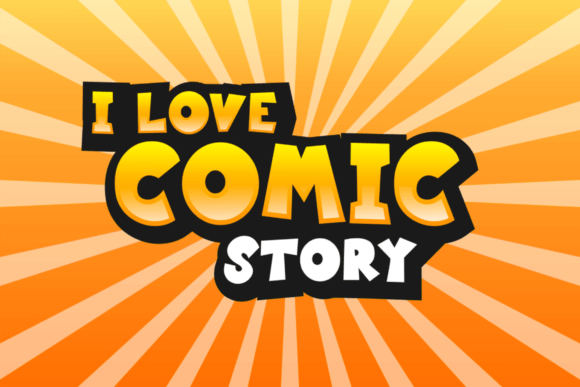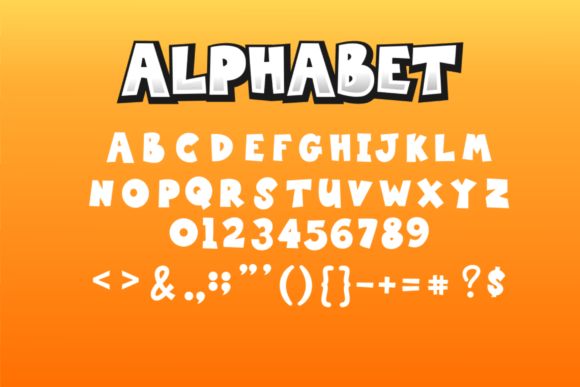
Droge Font: Add a Cute and Fun Twist to Your Design Projects
Are you looking for a font that can add a playful and adorable touch to your design projects? Look no further than Droge Font! This cute and fun display font features fat strokes that make it perfect for a variety of design applications, from logos and stationery to posters and more.
What is Droge Font?
Droge Font is a display font designed to bring a sense of fun and playfulness to your designs. Its fat strokes give it a bold and eye-catching appearance that’s sure to grab attention. Whether you’re working on a logo, poster, or social media graphic, Droge Font is a great choice for adding a touch of whimsy and personality to your design.
Key Features of Droge Font
- Cute and Fun Design: Droge Font features a playful design that’s perfect for adding a touch of personality to your designs.
- Fat Strokes: The font’s fat strokes give it a bold and eye-catching appearance that’s sure to grab attention.
- Versatile: Droge Font can be used for a variety of design applications, from logos and stationery to posters and more.
- Easy to Read: Despite its playful design, Droge Font is easy to read and can be used for both headings and body text.
How to Use Droge Font in Your Design Projects
Droge Font is a versatile font that can be used in a variety of design applications. Here are a few ideas for how you can use it in your design projects:
- Logos: Use Droge Font to create a playful and memorable logo for your business or brand.
- Stationery: Add a touch of personality to your stationery with Droge Font, perfect for business cards, letterheads, and more.
- Posters: Use Droge Font to create eye-catching posters for events, promotions, and more.
- Social Media Graphics: Add a playful touch to your social media graphics with Droge Font, perfect for Facebook, Instagram, Twitter, and more.
Why Designers and Crafters Love Droge Font
Droge Font has quickly become a favorite among designers and crafters, and for good reason. Here are a few reasons why:
- Unique Design: Droge Font features a unique and playful design that’s sure to stand out from the crowd.
- Versatile: Droge Font can be used for a variety of design applications, making it a great addition to any designer’s toolkit.
- High-Quality: The font is high-quality and features clean, crisp lines that look great in any design.
Tips for Getting the Most Out of Droge Font
Here are a few tips for getting the most out of Droge Font:
- Experiment with Different Sizes: Droge Font looks great in a variety of sizes, so don’t be afraid to experiment and find the perfect size for your design.
- Pair with Other Fonts: Try pairing Droge Font with other fonts to create a unique and eye-catching design.
- Use for Headings and Titles: Droge Font is perfect for headings and titles, so don’t be afraid to use it to add a touch of personality to your design.
Droge Font is a cute and fun display font that’s perfect for adding a playful touch to your design projects. With its fat strokes and versatile design, it’s a great choice for a variety of applications, from logos and stationery to posters and more. Whether you’re a designer or crafter, Droge Font is a great addition to your toolkit.